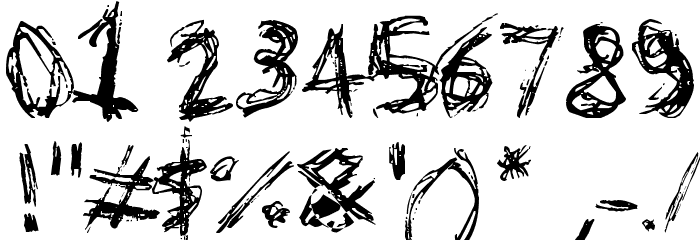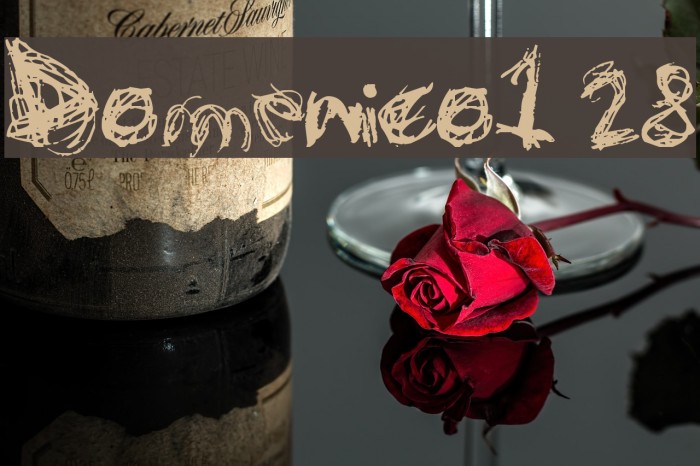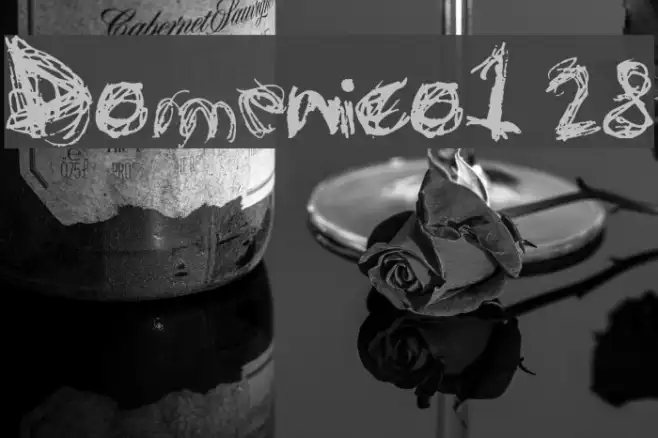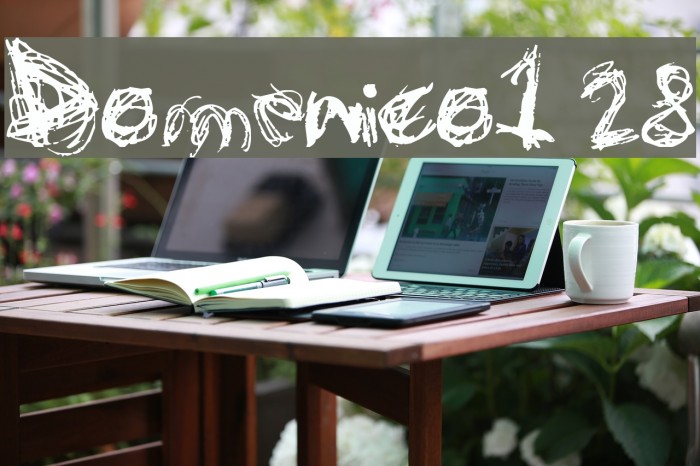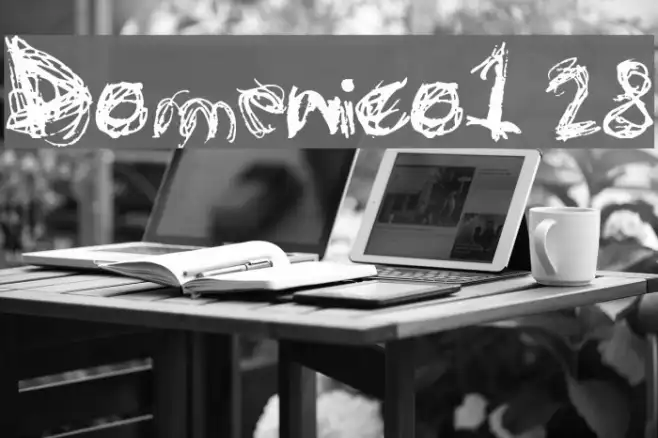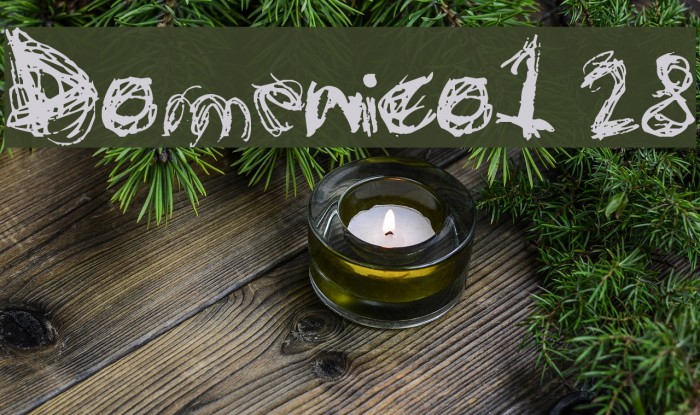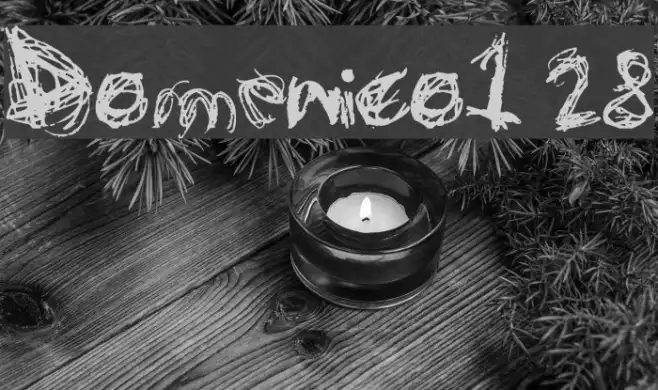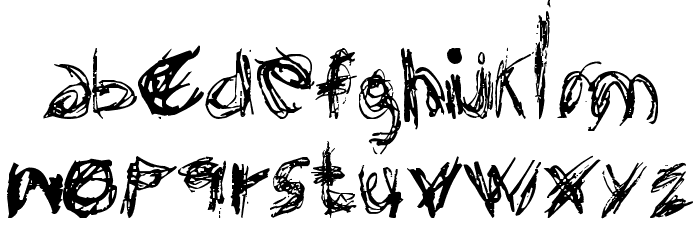
Domenico128 Font
Domenico128 Description
This font features a highly expressive and chaotic style, reminiscent of hand-drawn graffiti or distressed textures. The characters are irregular and dynamic, with strokes that vary significantly in thickness, creating a sense of movement and energy. The uppercase and lowercase letters maintain a consistent aesthetic, with jagged edges and a rough appearance. Numbers and special characters follow the same design principles, adding to the overall edgy and rebellious feel. This font is ideal for projects that require a bold and unconventional look, capturing attention with its unique and artistic flair.
| Use Case | Logos, Headlines, Posters |
| Proposed Projects | Album covers, street art posters, edgy branding, and rebellious-themed designs. |